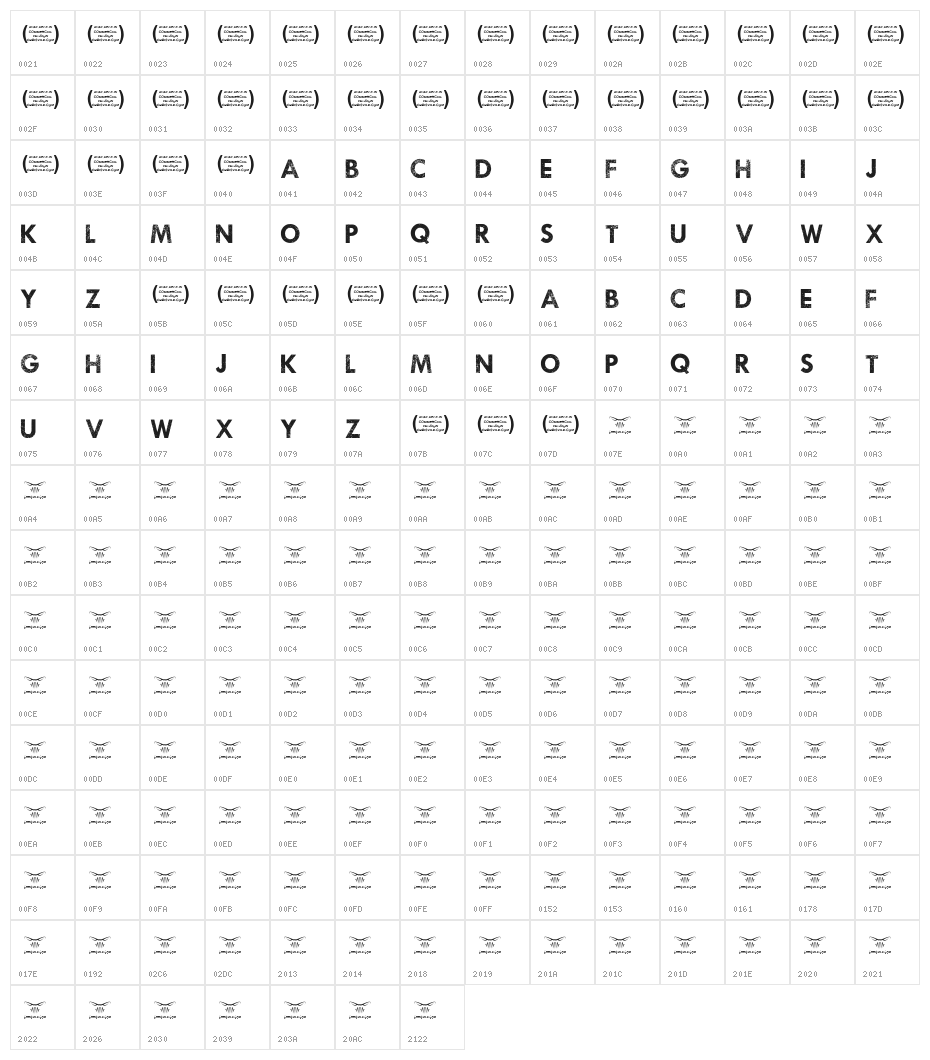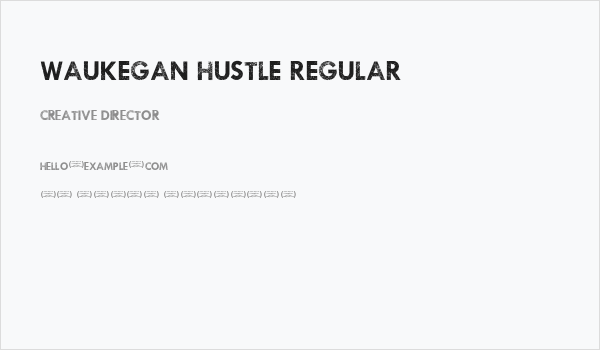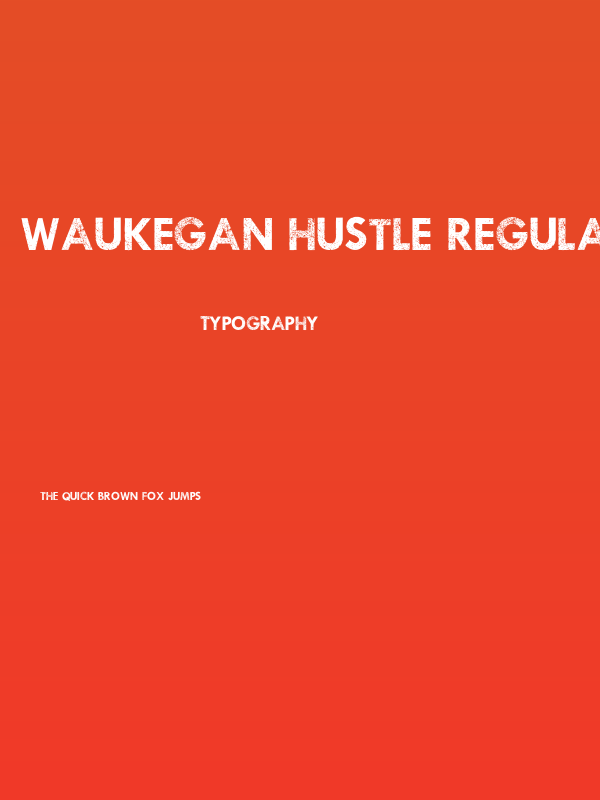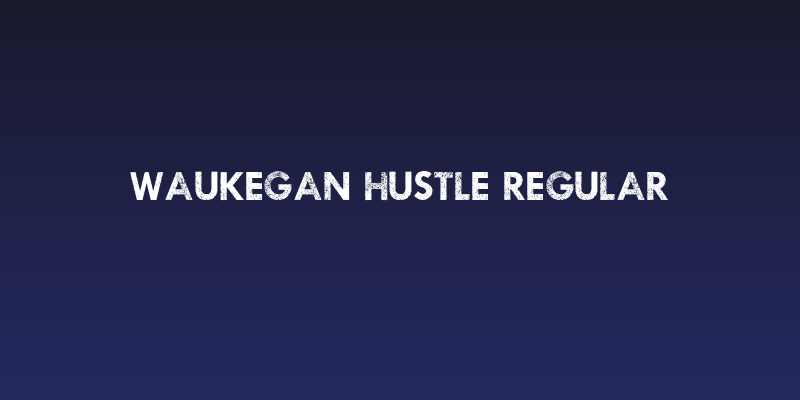
Waukegan Hustle Regular Font
Waukegan Hustle Regular Description
This font features a bold, distressed style with a textured appearance that gives it a rugged, vintage feel. The uppercase letters are prominent and impactful, making it suitable for attention-grabbing designs. The characters have a consistent width, and the overall look is both strong and dynamic. The distressed texture adds a layer of depth and character, making it ideal for projects that require a touch of authenticity and grit. This font is perfect for creating designs that need to convey strength and resilience, such as posters, branding, and merchandise.
| Proposed Projects | Ideal for posters, branding, merchandise, and any design needing a strong, vintage look. |